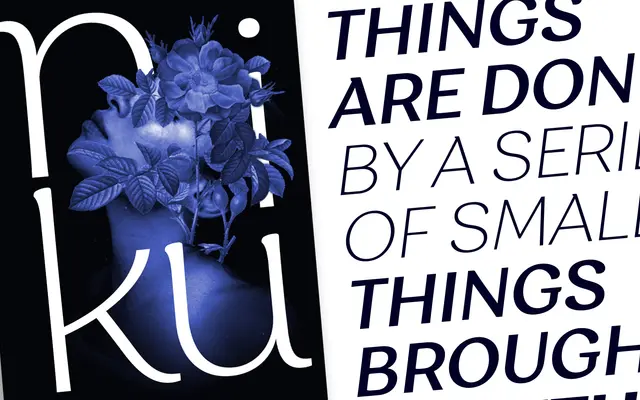
Garbata
Zetafonts · Francesco Canovaro · 2020
A sans serif by Francesco Canovaro that borrows its skeleton from old-style faces like Windsor and Cooper, adding a flat-brush calligraphic quality across eight weights with matching italics.
Rather than following grotesque or modernist models, Garbata draws on the quirky, sloped forms of old-style typefaces and flat-brush calligraphy, producing a sans that reads warmly at text sizes and shows character at display scale. The family runs from Thin to Black with matching italics, 861 glyphs, and coverage of over 200 languages across Latin and Cyrillic scripts. A variable font is included with the full family package, and the face ships with a thorough OpenType feature set including small caps, oldstyle figures and multiple stylistic sets.
Garbata takes its skeleton from old-style serif models like Windsor and Cooper, applying a flat-brush calligraphic sensibility to produce a sans with distinctly humanist, quirky letterforms rather than the neutral geometry of grotesque or modernist traditions.